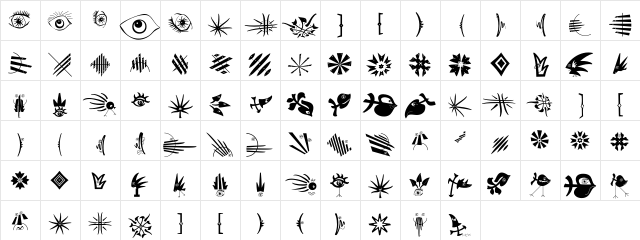
TypoPieces Regular
Design Context for TypoPieces Typeface
TypoPieces is a composed and adaptable typeface that performs quietly and consistently across a wide range of design contexts.